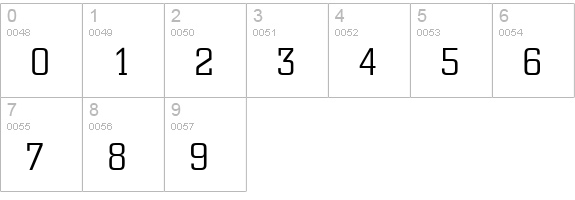
City (R) Light is a refined, elegant variant in the City typeface family \xE2\x80\x94 well suited to elegant body text, refined sub-headings, and luxury branding.
City (R) Light font is a modern and elegant typeface that exudes sophistication and clarity. With its sleek lines and refined curves, this font is perfect for conveying a sense of style and professionalism in any design project. The light weight of the font adds a touch of delicacy, making it ideal for headlines, branding, and editorial layouts. What sets City (R) Light font apart is not only its aesthetic appeal but also its accessibility. This font is available for free download at FontsMarket.com, making it easy for designers and creatives to incorporate it into their work without any cost barriers. Whether you're working on a personal project or a commercial endeavor, City (R) Light font is a versatile and reliable choice that will elevate your designs to the next level.